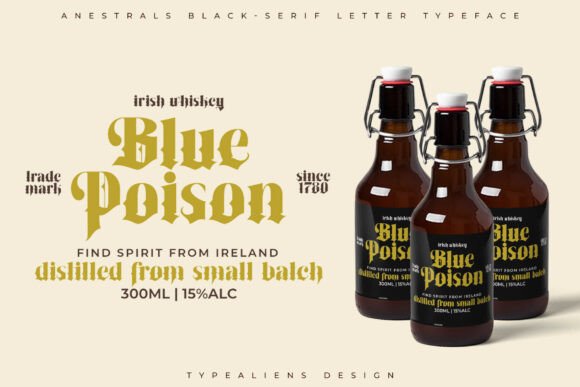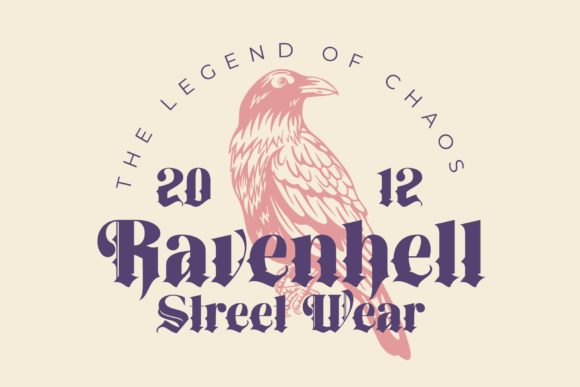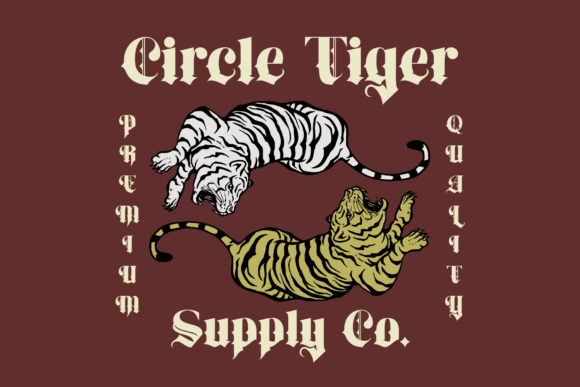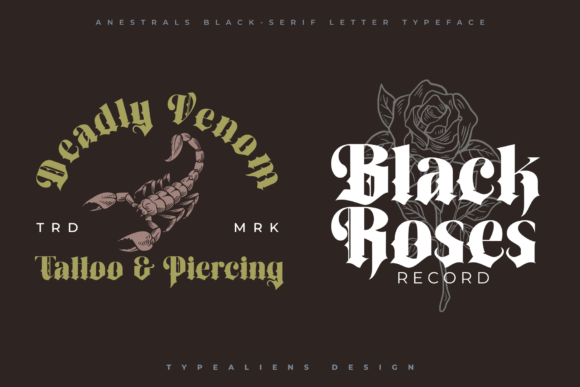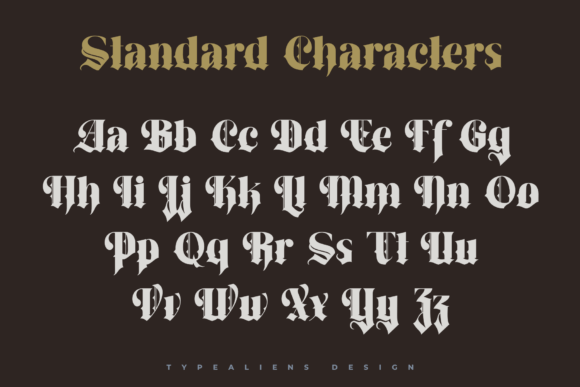
Introduction to Anestrals Font
We are pleased to introduce Anestrals, a font that combines the basic form of a serif font with the gothic style of Blackletter, resulting in a font that has a tough, bold, retro, and slightly gothic feel.
This font is perfect for display and can also be used as a headline for articles or titles Because itโs bold, when used as a title or headline, it looks bold and more striking.
Anestrals Font offers exceptional quality and versatility, making it a valuable addition to your design toolkit. Whether you’re creating for personal projects or commercial use, Anestrals Font delivers professional results.